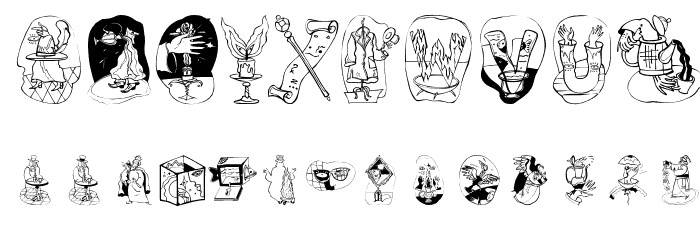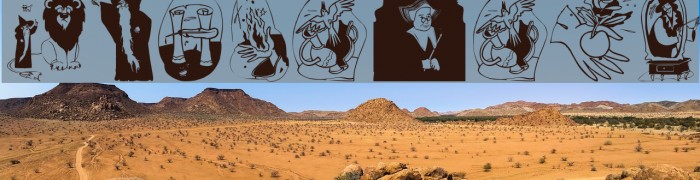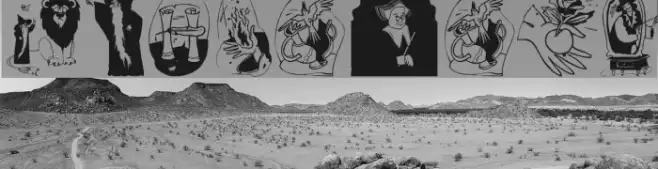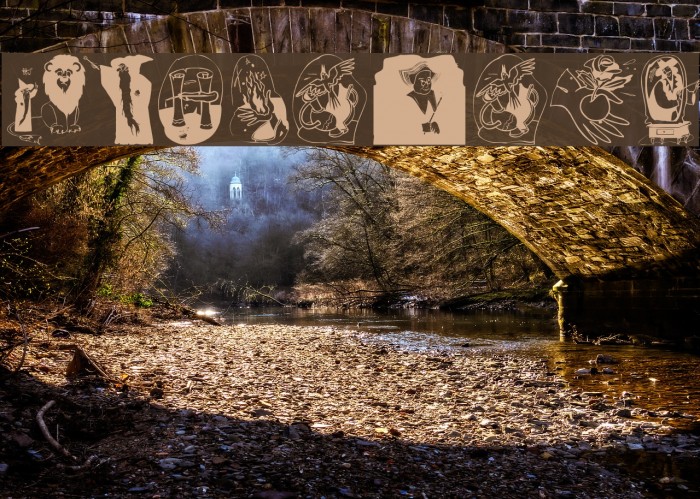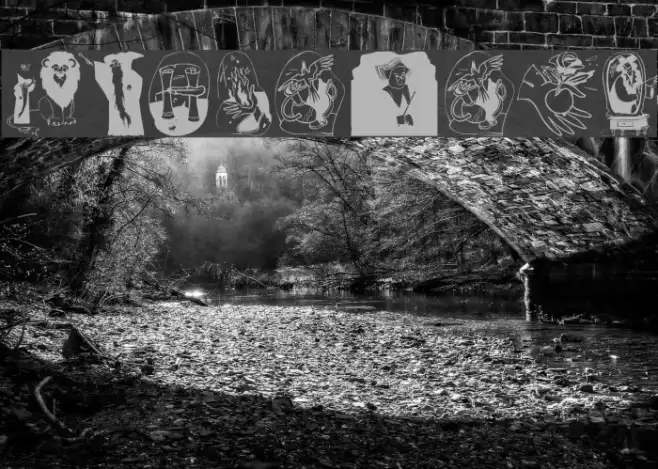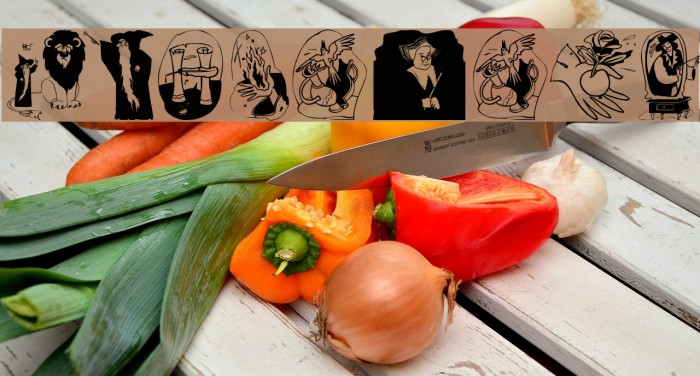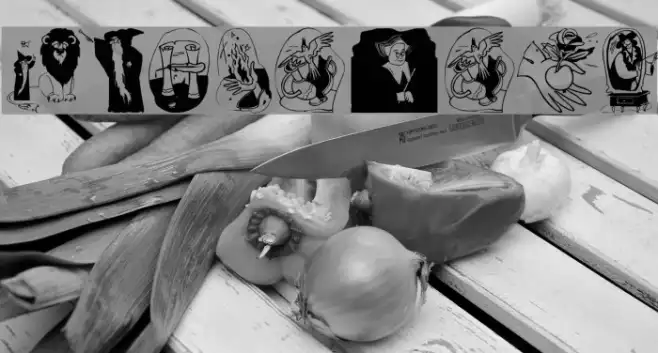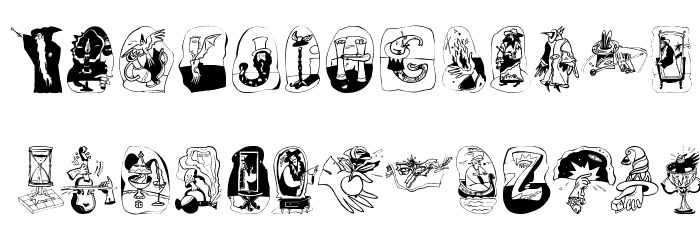
MagicActs Font
MagicActs Description
This font is a highly decorative and thematic typeface inspired by the world of magic and illusion. Each character is intricately designed to incorporate elements of classic magic acts, such as magicians, rabbits, top hats, and mystical symbols. The letters are not uniform in shape, each taking on a unique form that reflects its magical theme, making it more of an illustrative art piece than a traditional font. The detailed illustrations within each character add a whimsical and fantastical quality, making it suitable for creative and themed projects. The font's playful and imaginative style is perfect for capturing the essence of magic shows, fantasy events, or any project that seeks to evoke a sense of wonder and enchantment.
Proposed ProjectsIdeal for magic show posters, fantasy book covers, themed party invitations, and children's event branding.